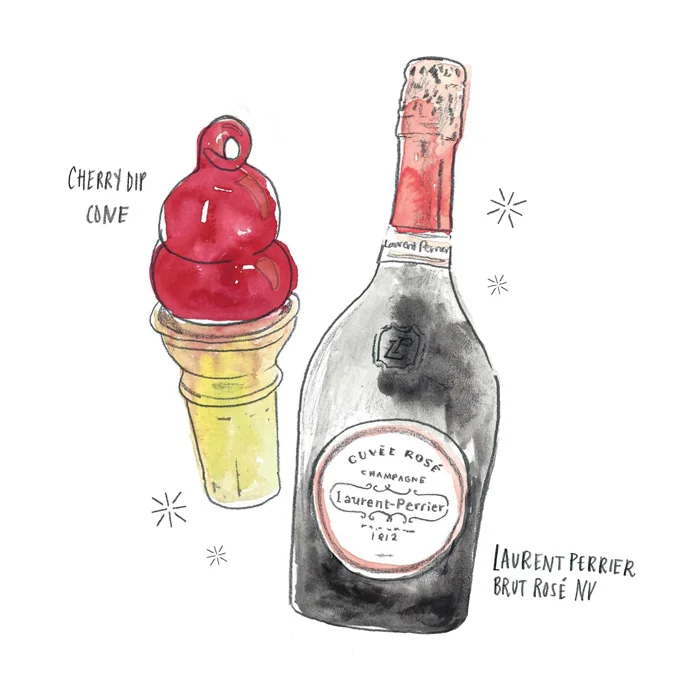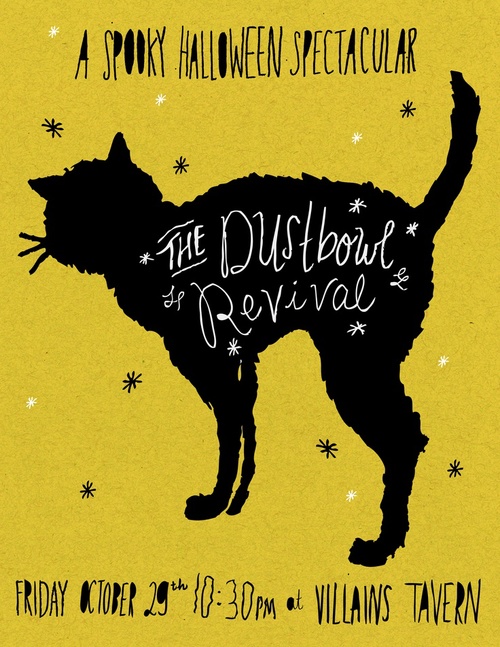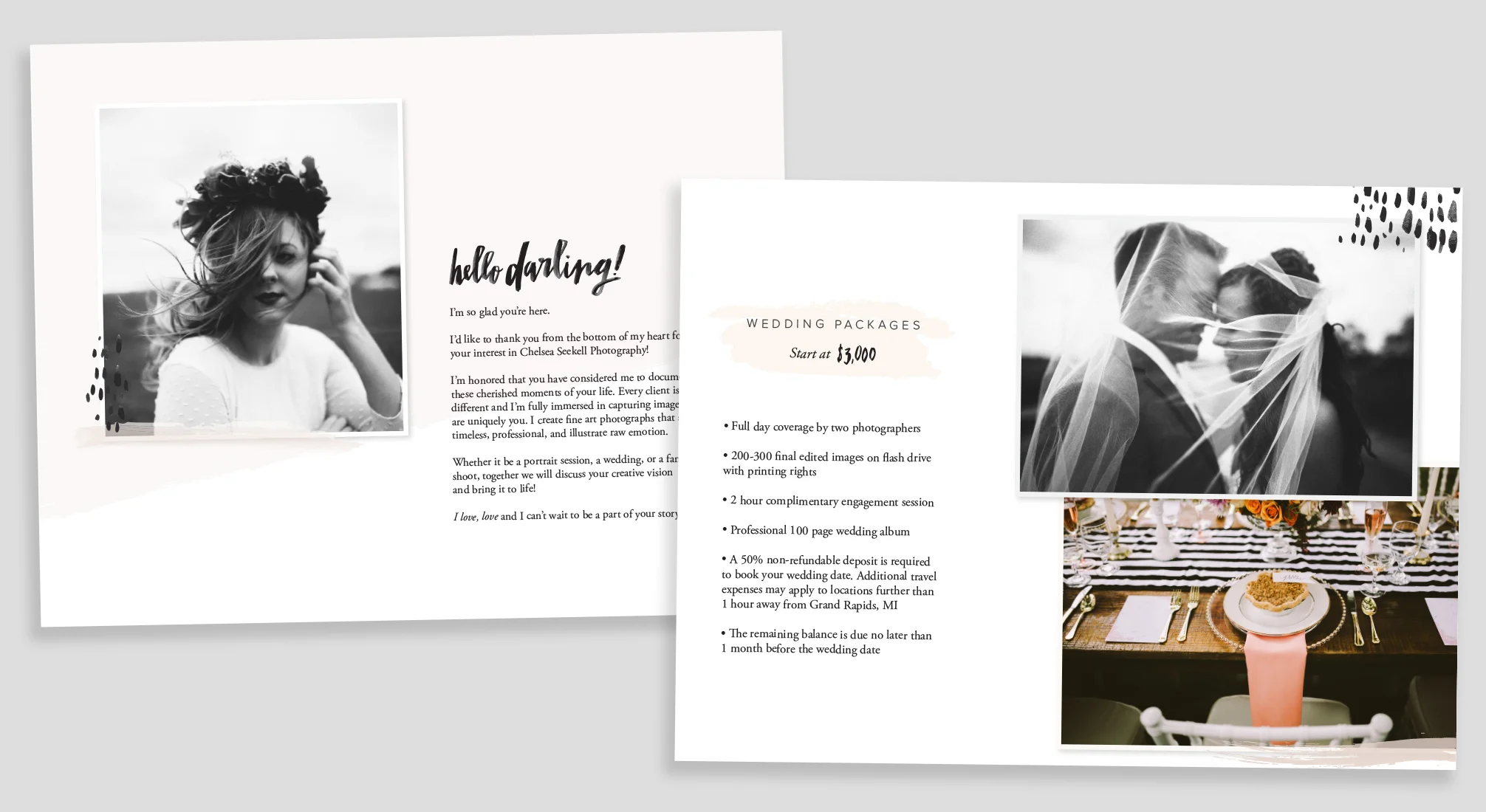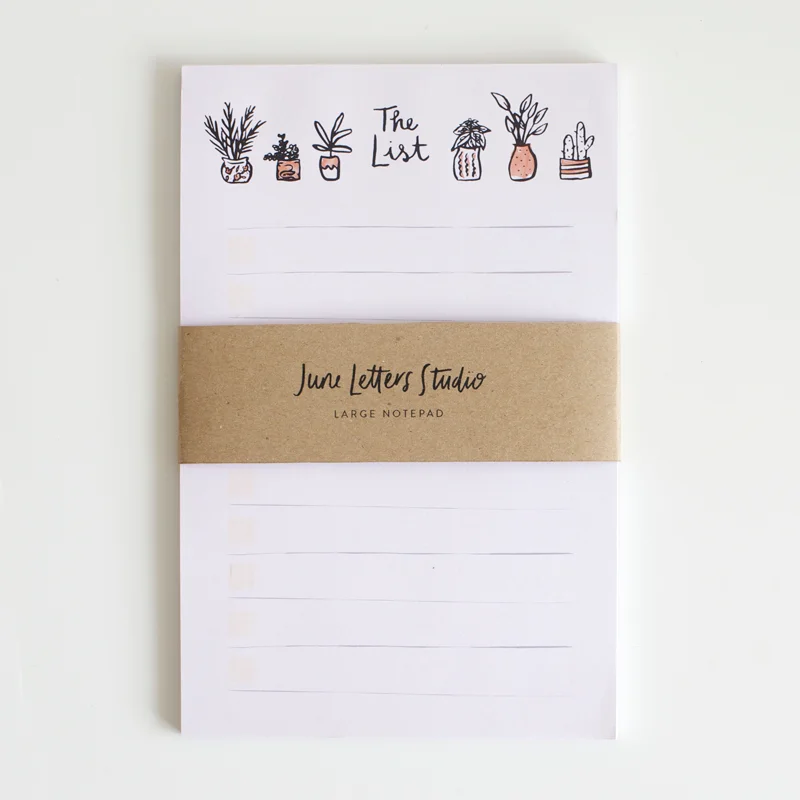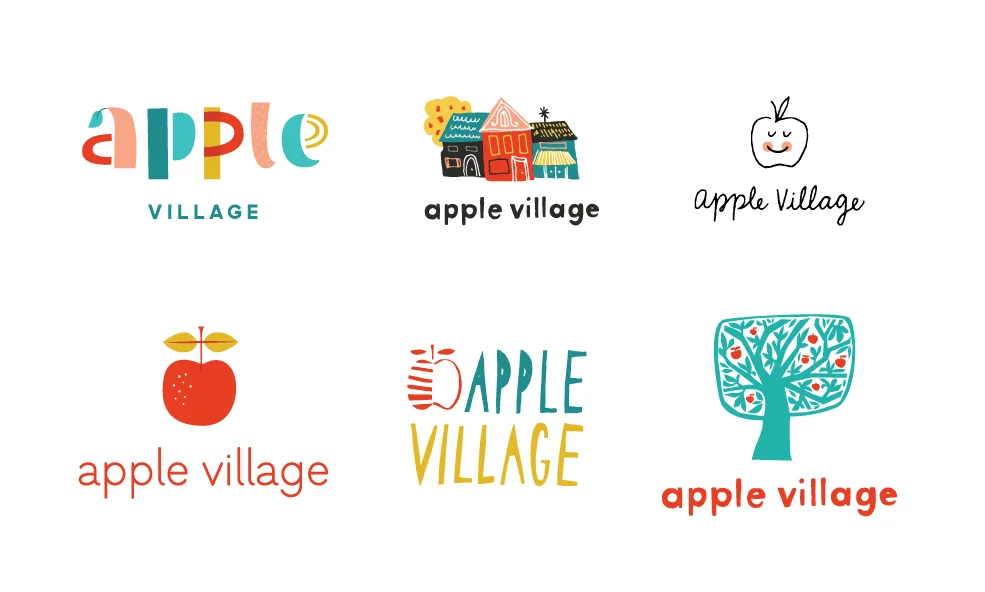
Apple Village Branding
Apple Village is a design-centric children's boutique located in Montclair, NJ. It was important to create a modern-cool brand that also had a touch of color, vintage and whimsy.
Allison Walsh Branding
Allison Walsh is a passionate, caring, and free-spirited woman that has set out to build a community of like-minded women. Her goal is to foster a community that encourages creating your legacy business, and cultivating your wildest dreams. For her branding she set out to evoke comfort, kindness, and authenticity - and for the design style to be sophisticated but still relatable - feminine but not overly so. I think we achieved this balance and I am very excited for the future of her venture!
Mata Traders
Allison Walsh is a passionate, caring, and free-spirited woman that has set out to build a community of like-minded women. Her goal is to foster a community that encourages creating your legacy business, and cultivating your wildest dreams. For her branding she set out to evoke comfort, kindness, and authenticity - and for the design style to be sophisticated but still relatable - feminine but not overly so. I think we achieved this balance and I am very excited for the future of her venture!
Ellie Koleen Photography
Ellie Koleen is a wedding and portrait photographer based in Fresno, CA. She has a great eye for light, an amazing sense of style, and a lovely personality to boot! I had a lot of fun working on her branding and I look forward to watching her business grow.
Shakespeare & Company
I created these illustrations for an amazing in-depth article about the legendary Shakespeare & Co. shop in Paris for VanityFair.com. Check out the full article here.
Assorted Logos
A collection of logos I have designed for start-up companies and creative clients. This selection includes final logos as well as proposed logos and personal experiments.
POPSUGAR Illustrations & Lettering
I have had the pleasure of working with the creative team at PopSugar over the past few months creating illustrations and lettering for their various projects!
Chelsea Seekell Photography
I was very excited when Chelsea approached me to work on a re-brand for her blooming photography business. Her photographs are so moody and timeless looking - I was instantly in love! Chelsea came to me for my brush lettering and I was more than happy to oblige! To compliment the brush-y script of her logo I brought in more paint brush textures and in combination with her muted color scheme - the whole brand has a very sophisticated but still whimsical feel.
Leslie-Alford-Mims House
The "Mims House" is a new wedding venue located just outside Raleigh, North Carolina. The venue is a historic manor with tons of southern flair. Wedding event planner Priscilla Erwin and caterer, Brooke Everhart teamed up together to run the wedding venue. For the brand they wanted something romantic and whimsical that would appeal to a feminine bride.
June Letters Shop Collection
This winter I put together a collection of stationery products that were sold through my website. I had a lot of fun creating these products and am very proud of them! The shop is no longer up, but hoping to have a new collection of items in the future!
Assorted Illustrations
While never my primary job, I have always loved illustration. Over the years I have been able to develop my own style and work with many wonderful clients. Recently I have been creating many self-initiated illustrations for my blog.
Mister Softee Rose Pairings
I created these illustrations for a fun summer article on VanityFair.com. Check out the full article here.
Yelp
Yelp was my first job out of college and working there was one of the best experiences of my life. During my two years at Yelp, I worked on their marketing team creating the promotional materials for all of Yelp's 80+ (at the time) community managers.